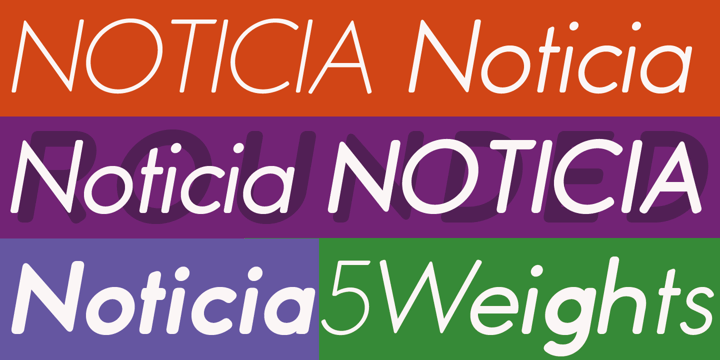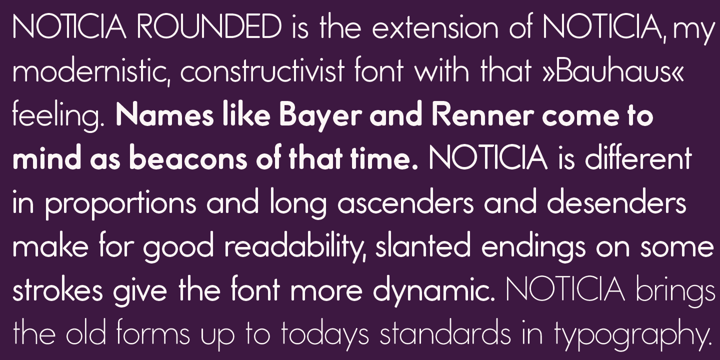
About Noticia Rounded Font Family
Noticia Rounded is the extension of Noticia, my modernistic, constructivist font with that »Bauhaus« feeling. Names like Bayer and Renner come to mind as beacons of that time. Noticia is different in proportions and long ascenders and descenders make for good readability, slanted endings on some horizontal strokes give the font more dynamic. Noticia brings the old forms up to todays standards in typography. Enjoy!
Designers: Gert Wiescher
Publisher: Wiescher Design
Foundry: Wiescher Design
Design Owner: Wiescher Design